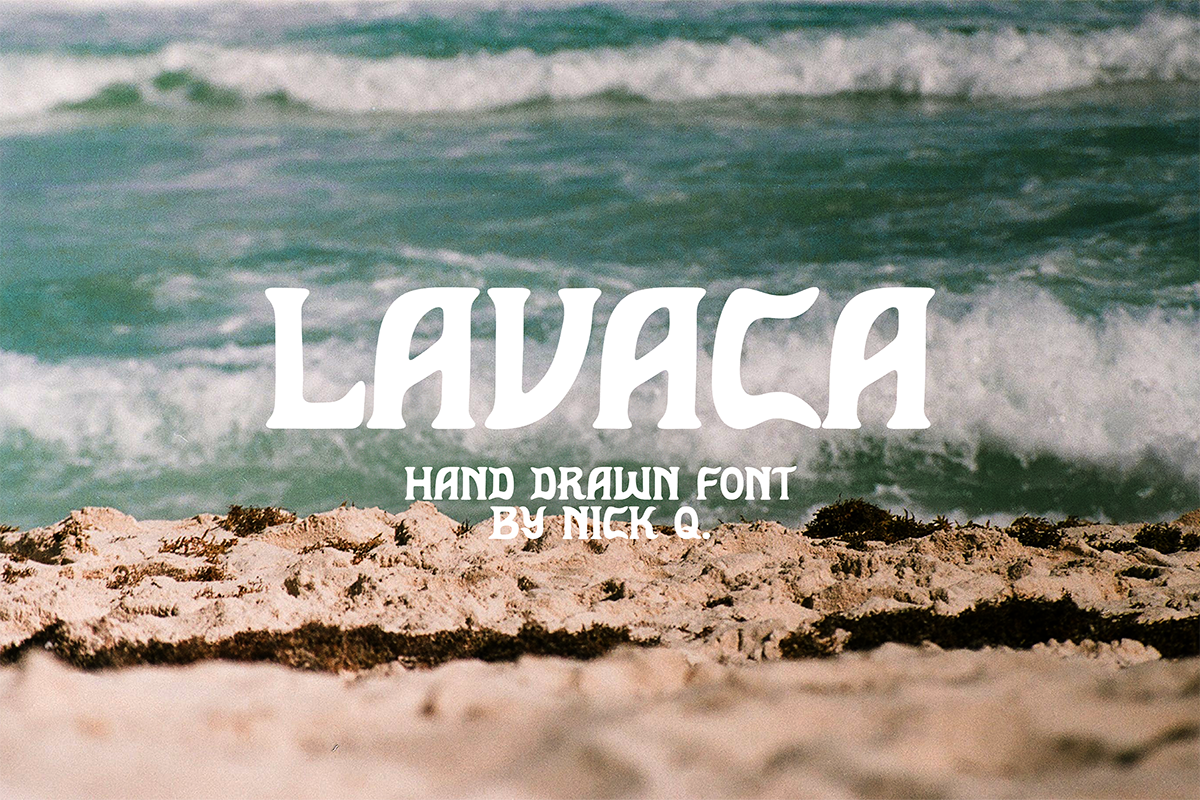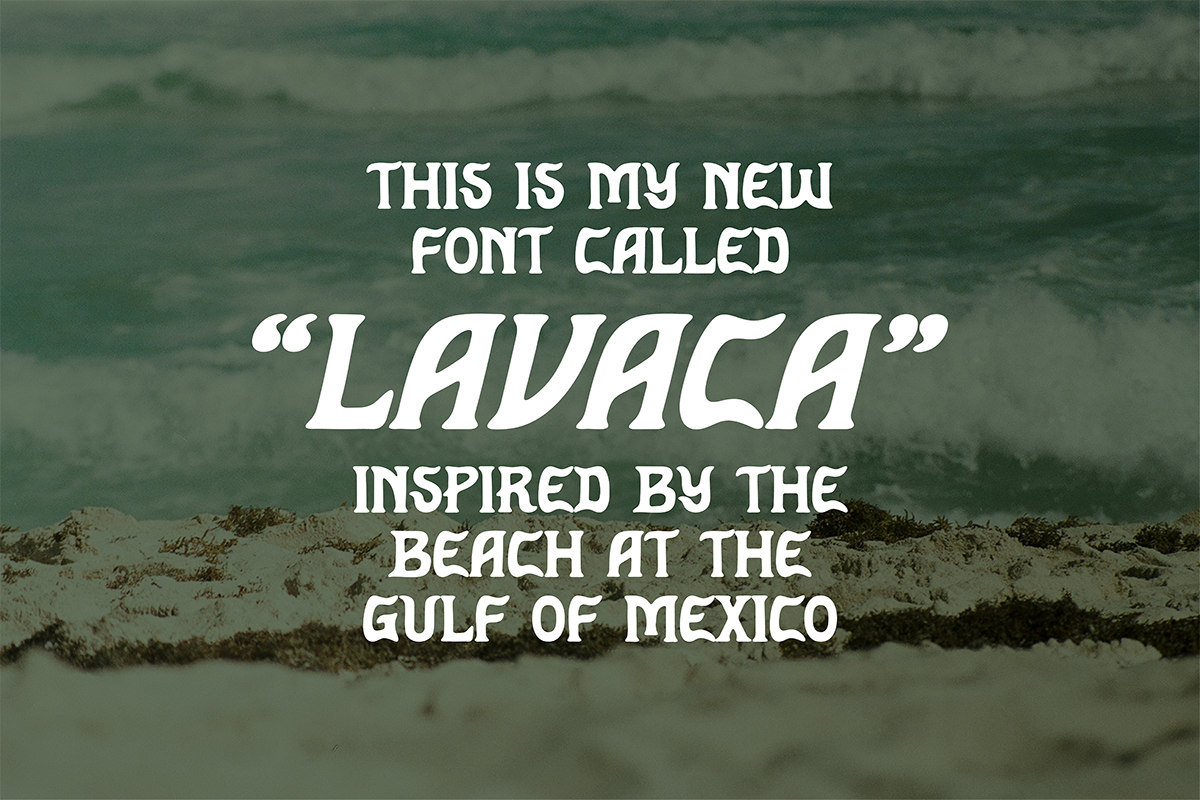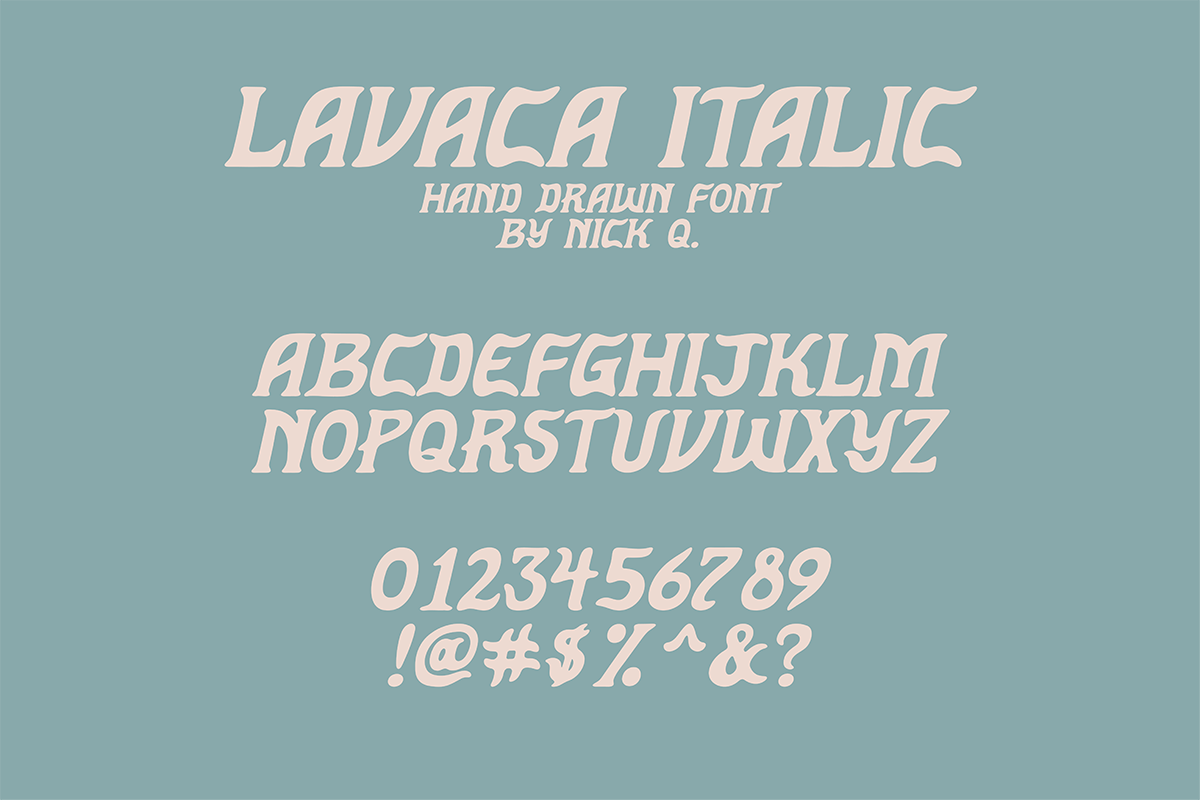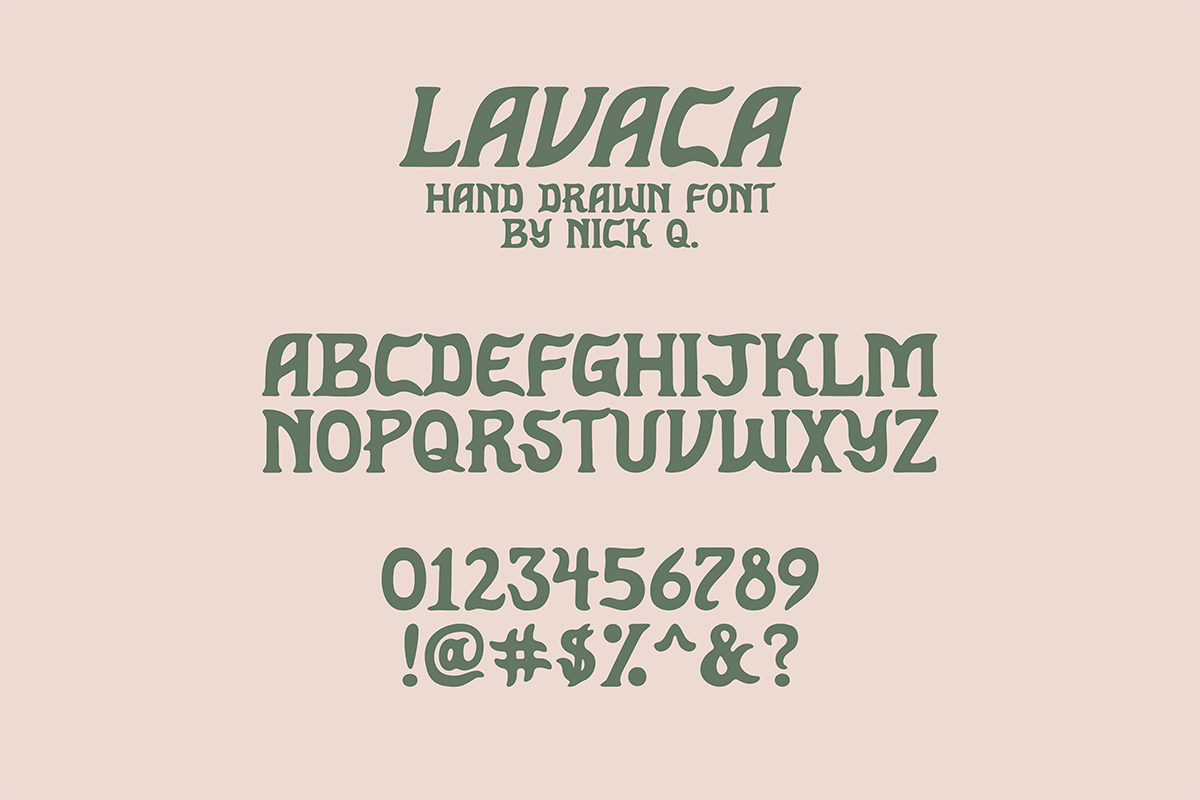
Lavaca Hand Drawn Font
Introducing Lavaca, a hand drawn font inspired by the serene coastline of Port Lavaca. Whether used for branding, packaging, or creative content, this font effortlessly infuses a touch of hand drawn warmth and authenticity. Includes a regular version and italic version.